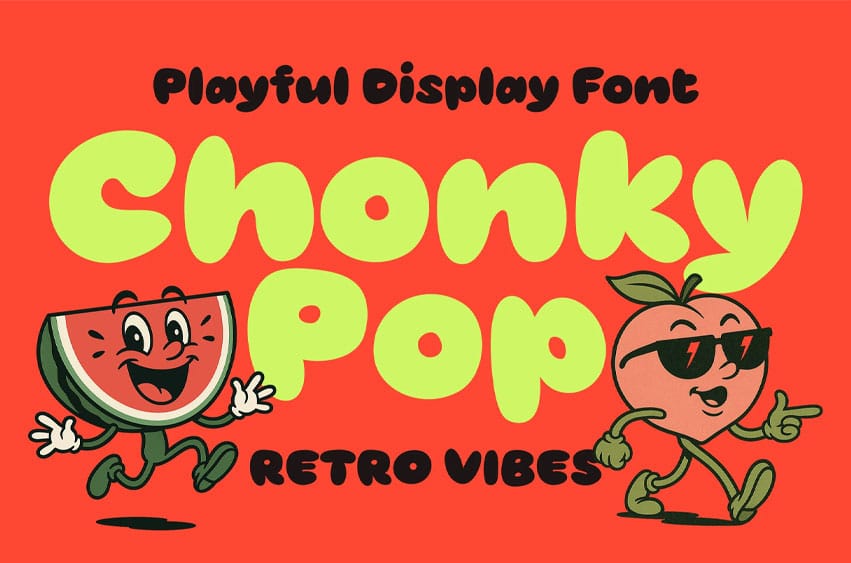
Chonky Pop Font Playful Display Font is a bold and fun typeface inspired by retro cartoon aesthetics and vibrant pop culture. With its chunky letterforms and smooth curves, this font is perfect for children’s projects, playful branding, packaging, posters, and social media graphics. Its unique style brings joyful personality and retro vibes to any design, making it stand out in both print and digital formats.
- Bold and playful retro display style
- Perfect for logos, posters, packaging, and social media
- Smooth curves for a friendly and approachable feel